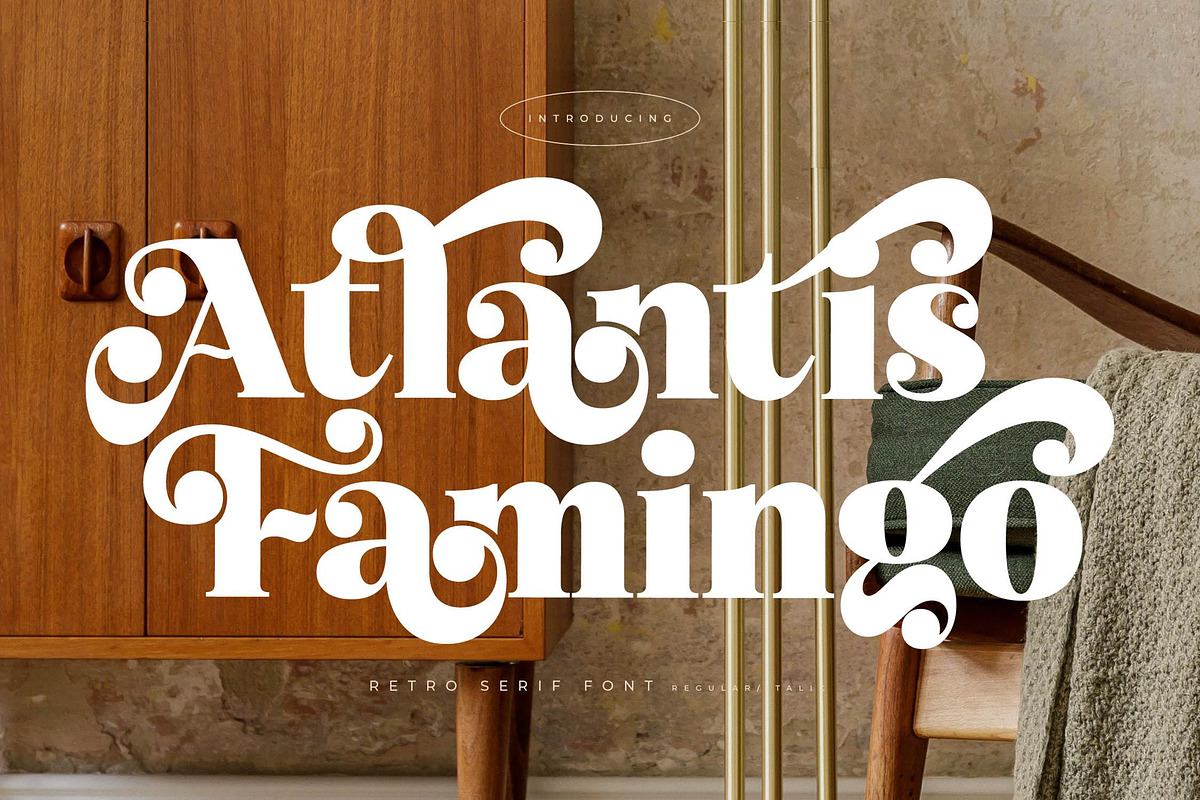
Atlantis Famingo Retro Serif Font Free Download
Atlantis Flamingo Retro Serif Font Free Download
Atlantis Flamingo Retro Serif Font Free Download is a bold and stylish typeface inspired by retro design trends. Featuring sharp serifs, elegant curves, and a distinctive vintage charm, this font is perfect for creating eye-catching headlines, logos, posters, branding, and more.
Its unique blend of classic serif design with a retro twist makes it an ideal choice for projects that need a nostalgic yet modern feel. Whether you're working on a vintage brand, a creative poster, or designing for a trendy event, Atlantis Flamingo adds character and flair to your typography.